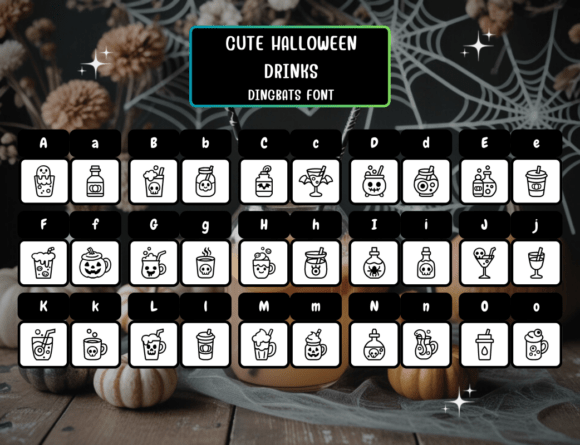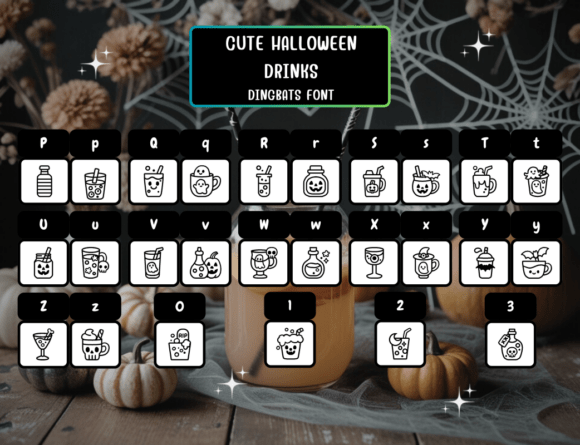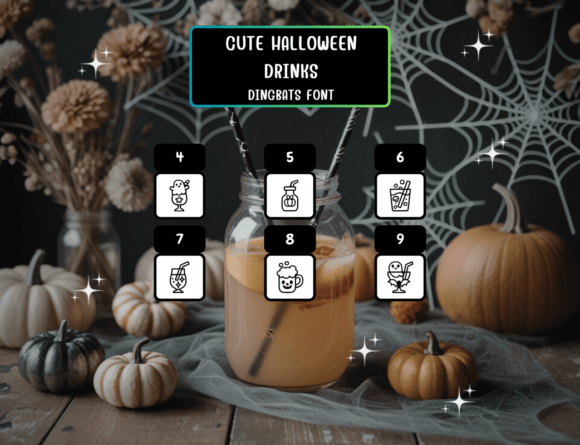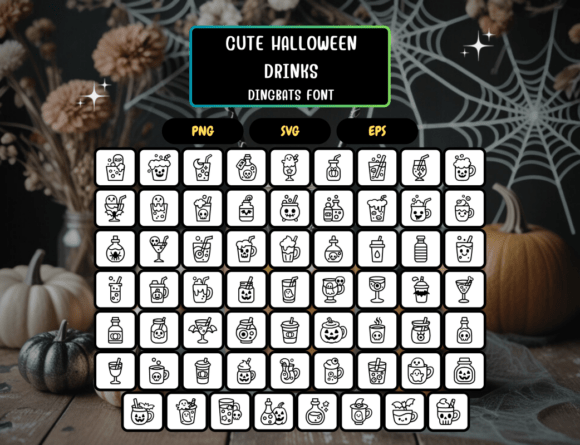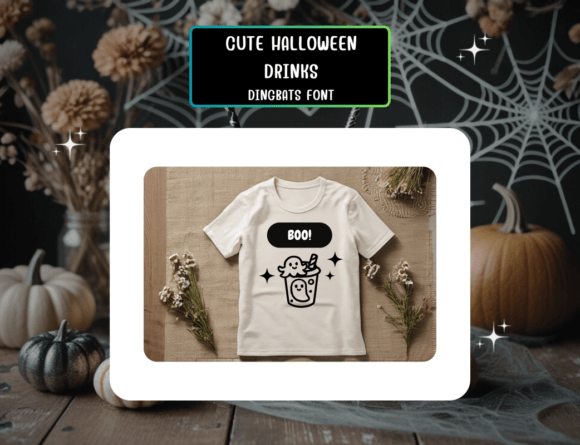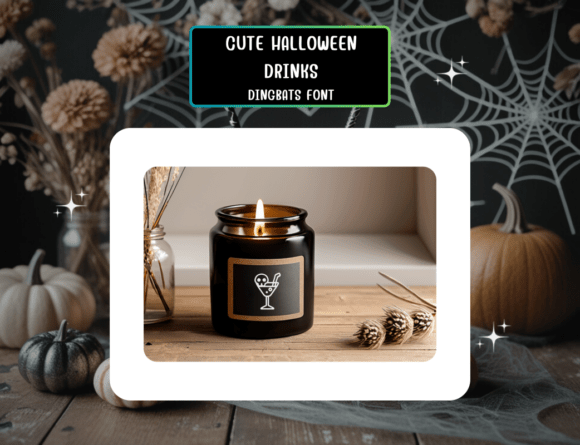
Add a Splash of Spooky Sweetness to Your Designs with Cute Halloween Drinks Regular Font
As the spookiest season approaches, it’s time to get creative with your designs and add a dash of eerie elegance to your projects. If you’re looking for a unique and playful way to celebrate Halloween, look no further than the Cute Halloween Drinks Dingbats Font. This charming collection of adorable beverage icons is sure to cast a spell on your audience and leave them mesmerized.
What is Cute Halloween Drinks Dingbats Font?
The Cute Halloween Drinks Dingbats Font is a carefully crafted collection of hand-drawn glyphs, each featuring a variety of spooky yet sweet beverage icons. From bubbling potions and pumpkin lattes to ghostly smoothies and bat-topped mugs, this dingbat set has everything you need to add a touch of Halloween magic to your designs.
With its bold lines and cheerful style, this font is perfect for designers, crafters, and teachers who love cute with a twist of creepy. Whether you’re creating Halloween-themed stickers, coloring pages, sublimation projects, party invites, or more, this dingbat set is a fun and easy way to inject personality and seasonal flair into your creations.
Key Features of Cute Halloween Drinks Dingbats Font
- Adorable Beverage Icons: This dingbat set features a wide range of spooky yet adorable beverage icons, including bubbling potions, pumpkin lattes, ghostly smoothies, and more.
- Hand-Drawn Glyphs: Each glyph is carefully hand-drawn with bold lines and a cheerful style, making it perfect for a variety of design projects.
- Perfect for Halloween-Themed Projects: Whether you’re creating stickers, coloring pages, party invites, or more, this dingbat set is perfect for adding a touch of Halloween magic to your designs.
Uses for Cute Halloween Drinks Dingbats Font
The Cute Halloween Drinks Dingbats Font is a versatile tool that can be used in a variety of design projects, including:
- Halloween-Themed Stickers: Add a touch of spooky sweetness to your stickers with this adorable dingbat set.
- Coloring Pages: Create fun and spooky coloring pages for kids and adults alike with this dingbat set.
- Sublimation Projects: Use this dingbat set to create unique and personalized sublimation projects, such as mugs, tumblers, and more.
- Party Invites: Add a touch of Halloween magic to your party invites with this adorable dingbat set.
Why Choose Cute Halloween Drinks Dingbats Font?
If you’re looking for a unique and playful way to celebrate Halloween, the Cute Halloween Drinks Dingbats Font is the perfect choice. With its adorable beverage icons, hand-drawn glyphs, and compatibility with most design software, this dingbat set is a fun and easy way to add a touch of spooky sweetness to your designs.
Whether you’re a designer, crafter, or teacher, this dingbat set is perfect for anyone who loves cute with a twist of creepy. So why wait? Get creative with the Cute Halloween Drinks Dingbats Font and add a splash of spooky sweetness to your designs this Halloween season!
In conclusion, the Cute Halloween Drinks Dingbats Font is a must-have for designers, crafters, and teachers who love Halloween. With its adorable beverage icons, hand-drawn glyphs, and compatibility with most design software, this dingbat set is a fun and easy way to add a touch of spooky sweetness to your designs.
So why wait? Get creative with the Cute Halloween Drinks Dingbats Font and make your Halloween designs stand out from the crowd. Whether you’re creating stickers, coloring pages, party invites, or more, this dingbat set is sure to cast a spell on your audience and leave them mesmerized.